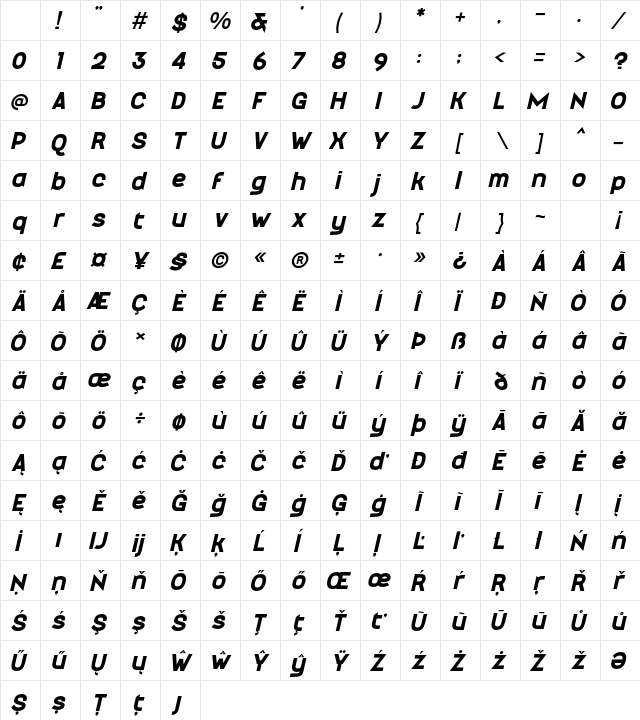
Complete Maduratna Semibold Italic Regular glyph index. Displaying only characters natively supported by Maduratna Semibold Italic Regular font.
Maduratna Semibold Italic is a composed and adaptable typeface that performs quietly and consistently across a wide range of design contexts. The slanted form adds forward momentum and visual energy. Its bold stroke weight gives it real presence on the page.
Pro Tip: Use Maduratna Semibold Italic for emphasis, pull quotes, and subheadings where its slanted energy can add rhythm to the layout.